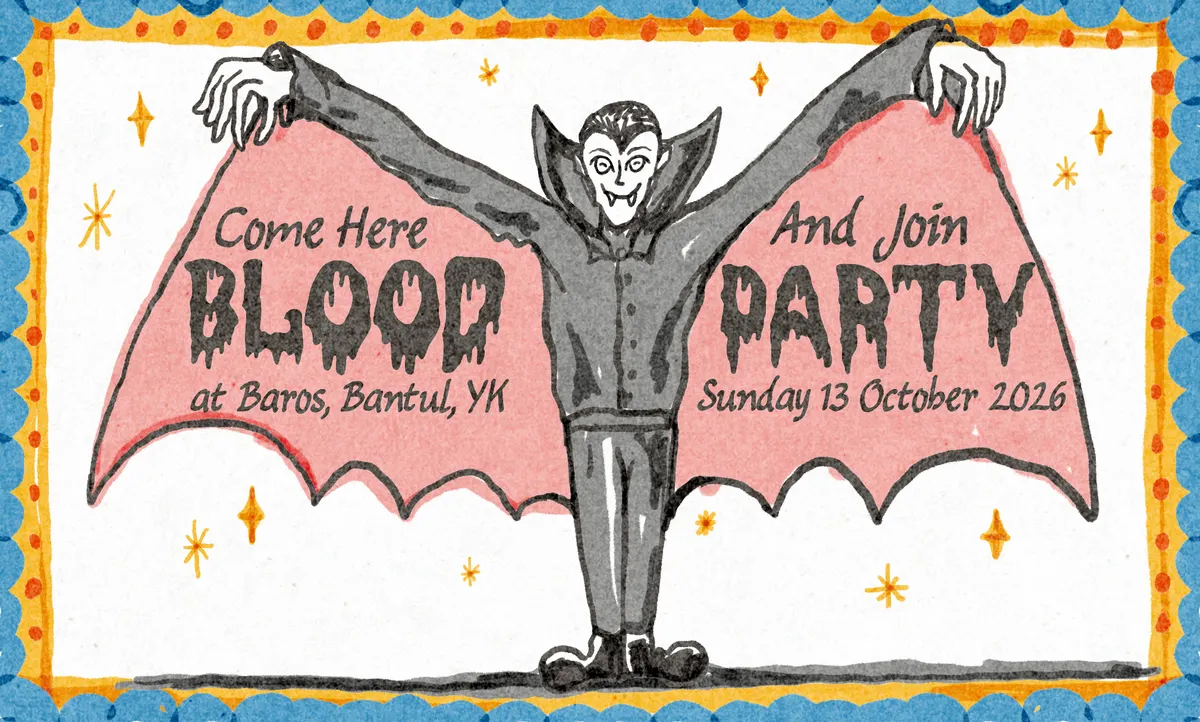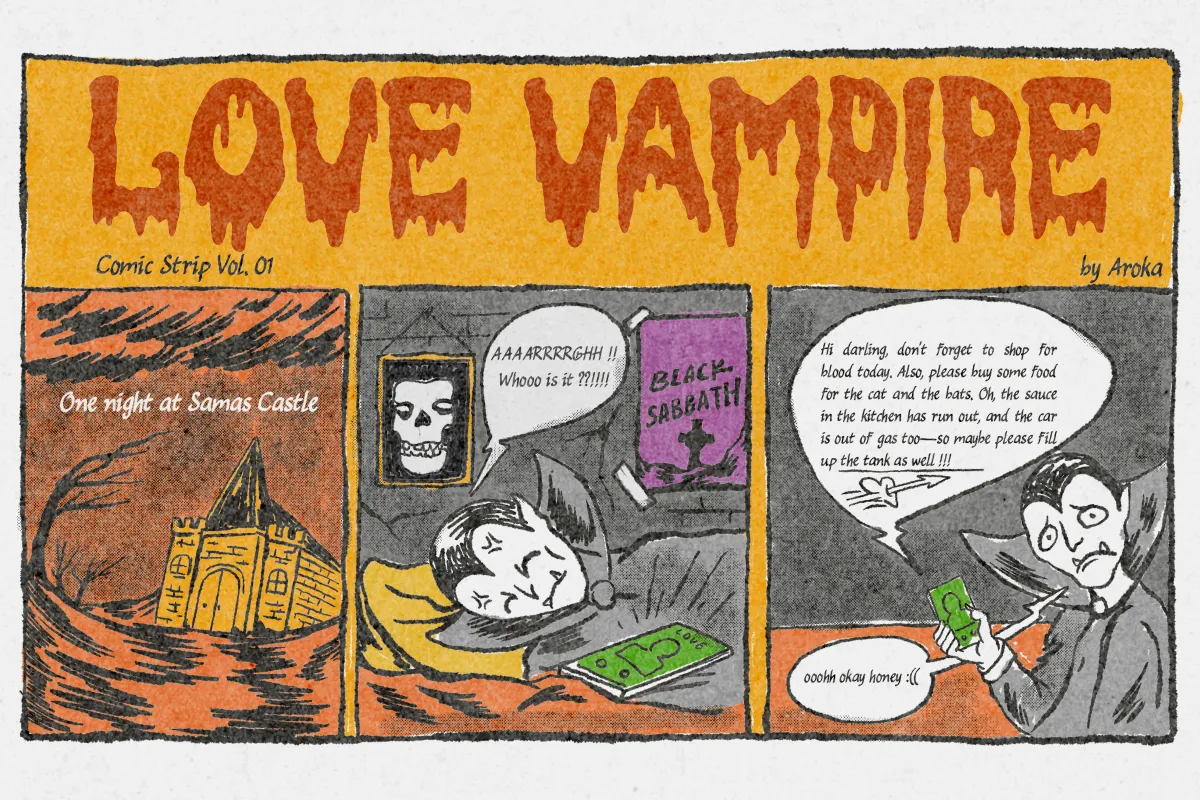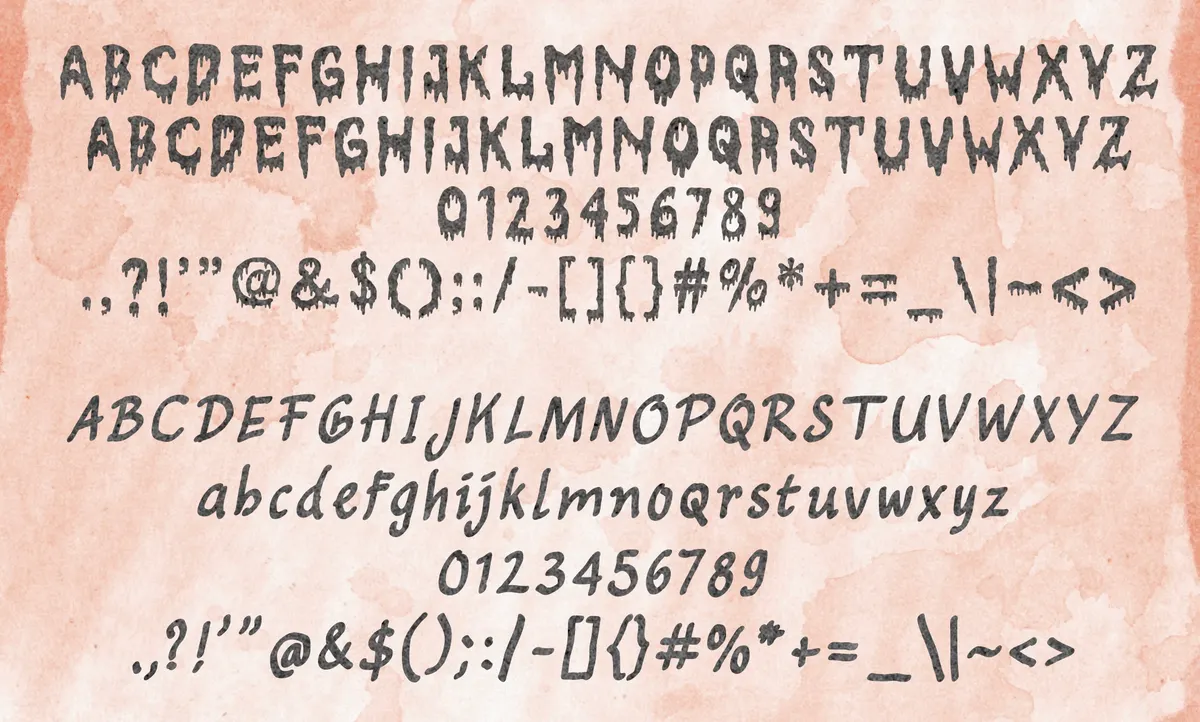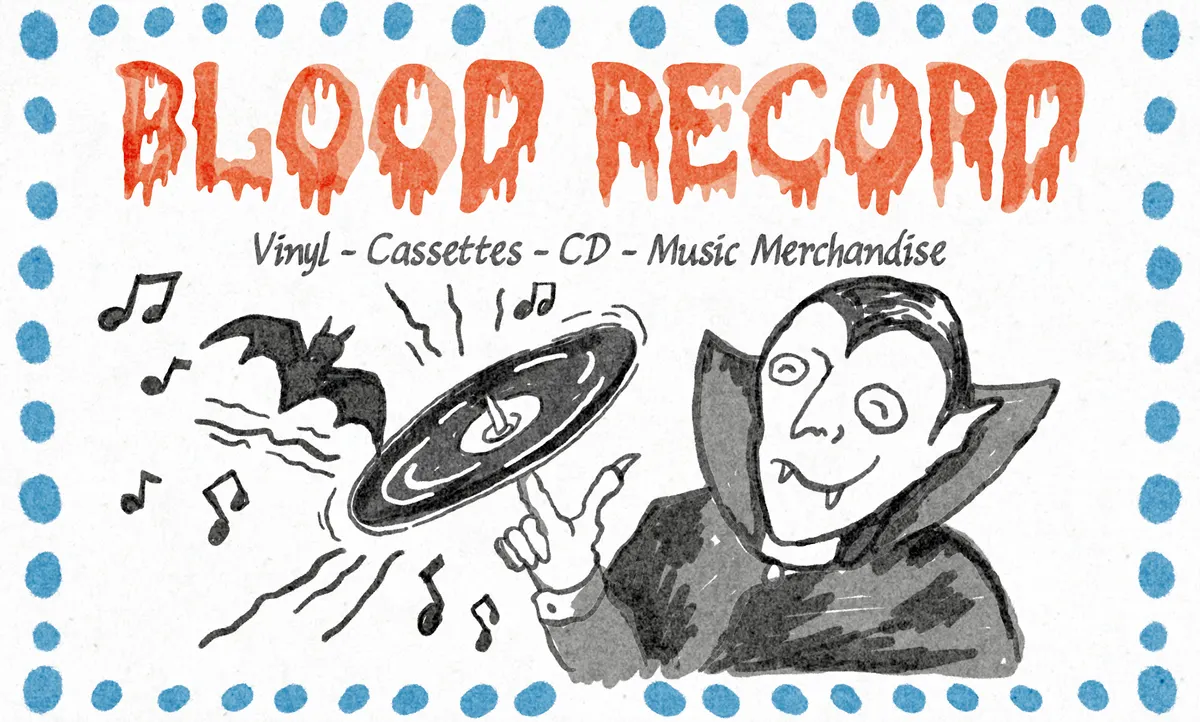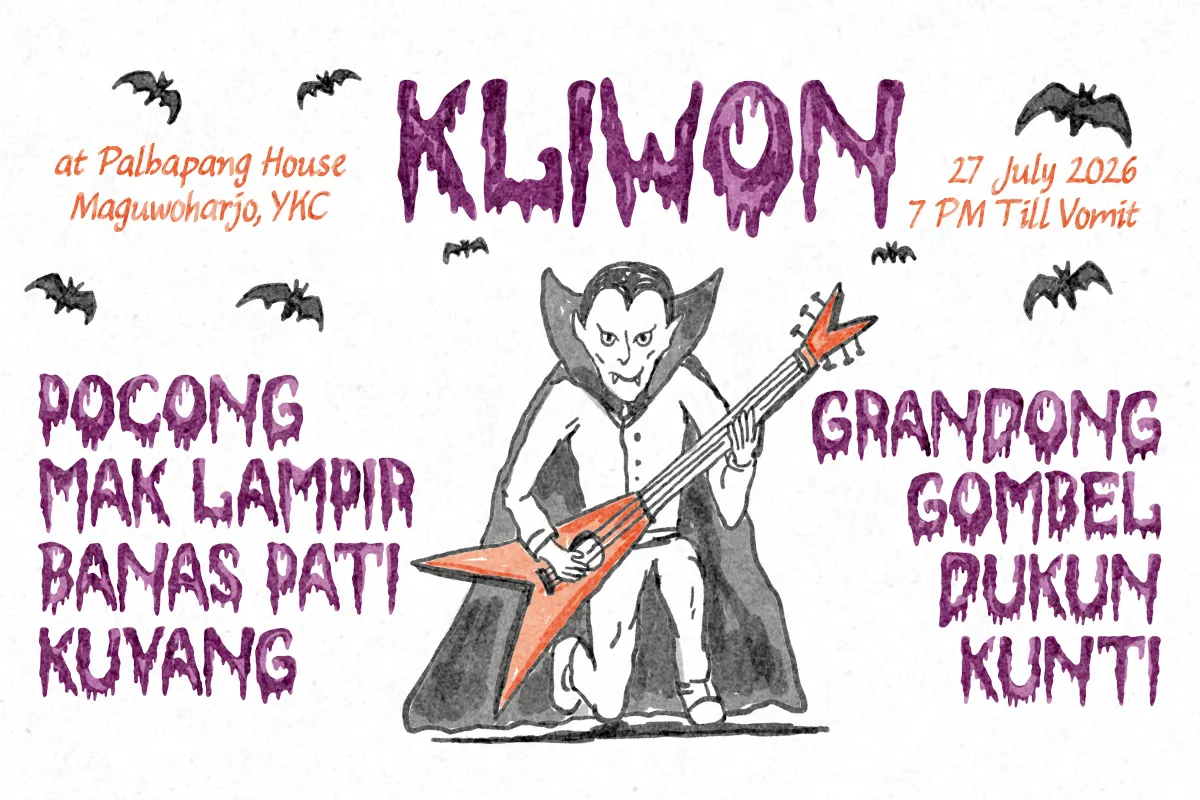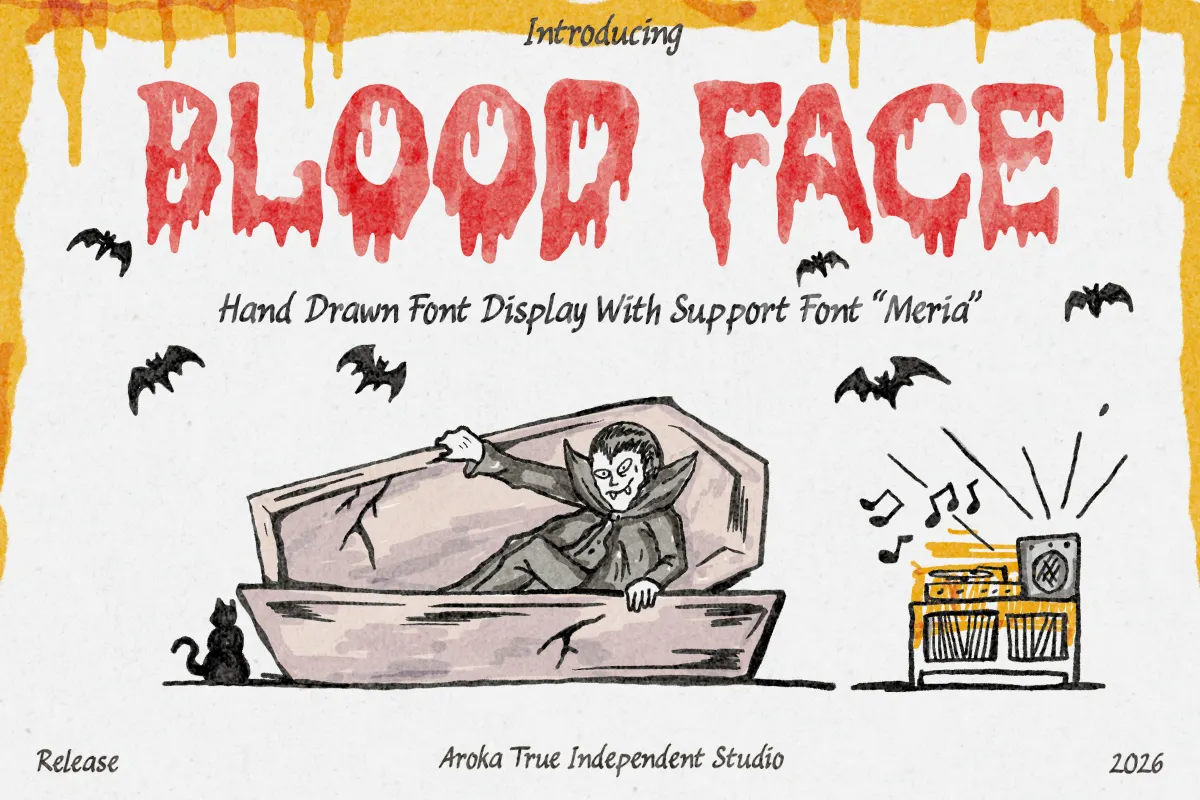
Blood Face - Hand Drawn Creepy Display Font
Blood Face
Meria
Blood Face builds thick, dripping capitals with a hand-painted horror-poster edge, closer to a torn indie gig flyer than a quiet display serif. It ships as a two-font pack paired with Meria, a genuine serif built to carry body copy and smaller headlines beside it. Lowercase keys on Blood Face mirror the same capital forms rather than a separate alphabet, so the display face reads as one deliberately all-caps voice.
Use the duo for horror and genre branding, Halloween flyers and posters, band and gig graphics, album art, and cassette or vinyl packaging.
- Blood Face: uppercase letters, numerals, punctuation & symbols;
- Meria: uppercase & lowercase, numerals, punctuation & symbols;